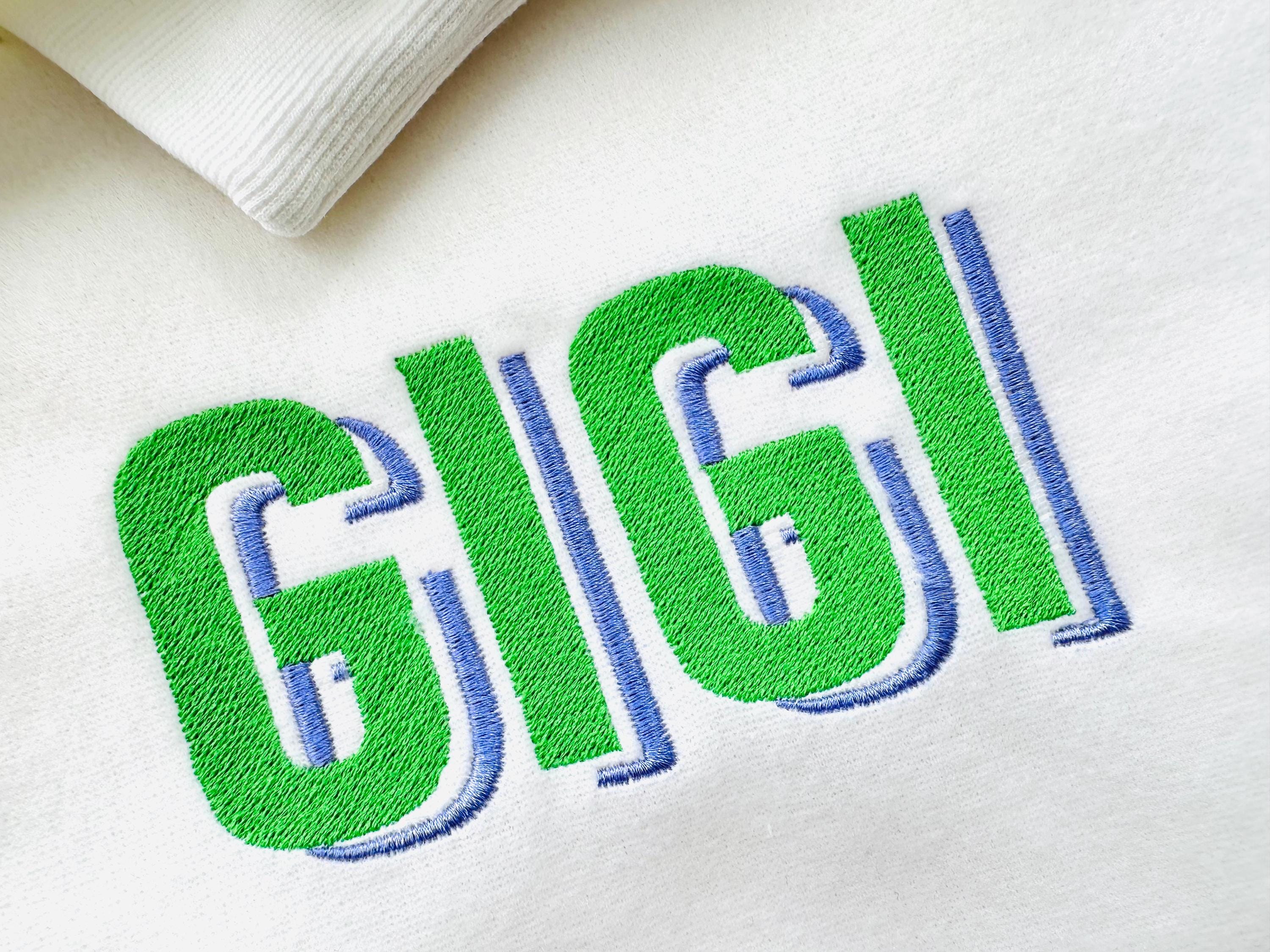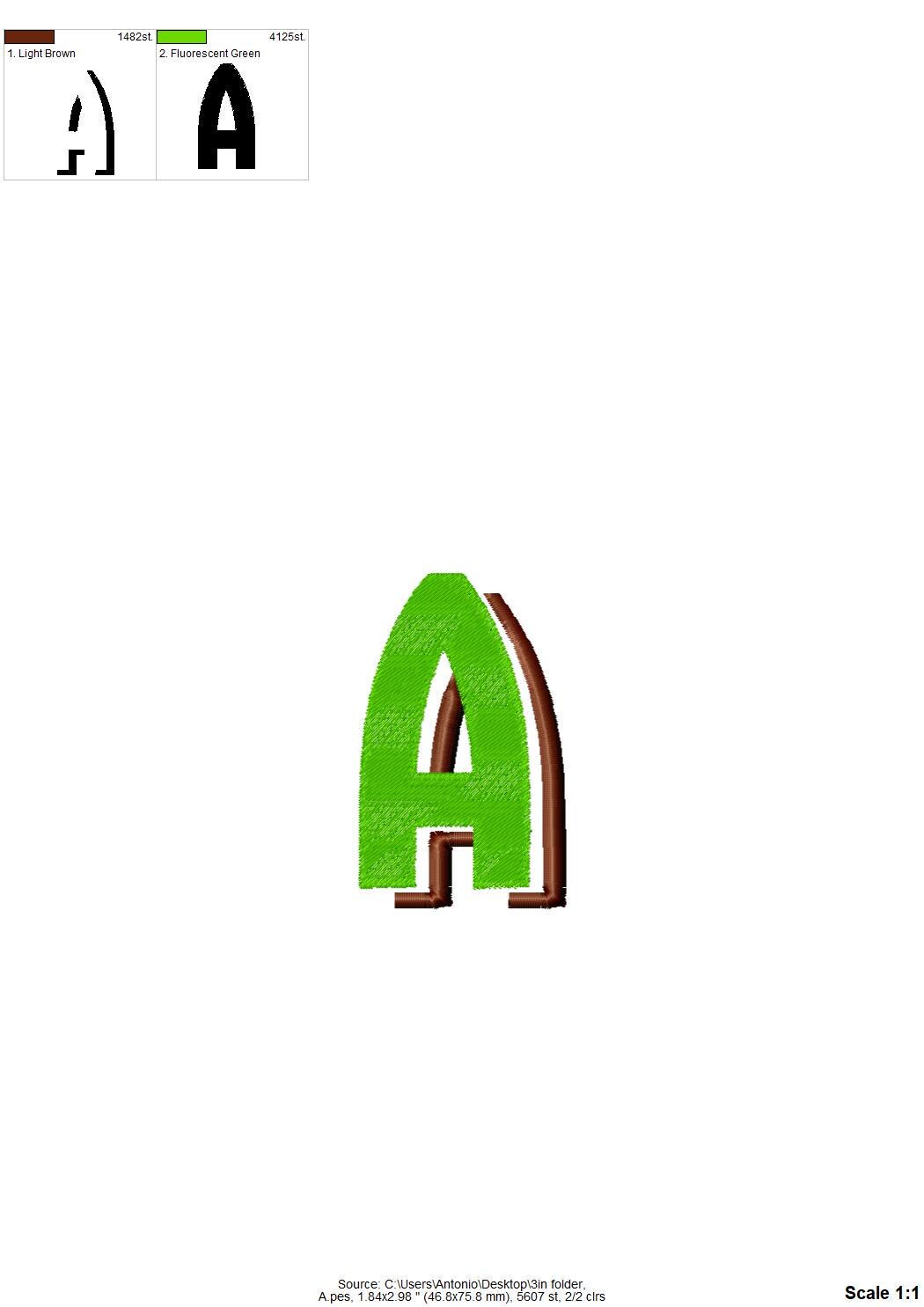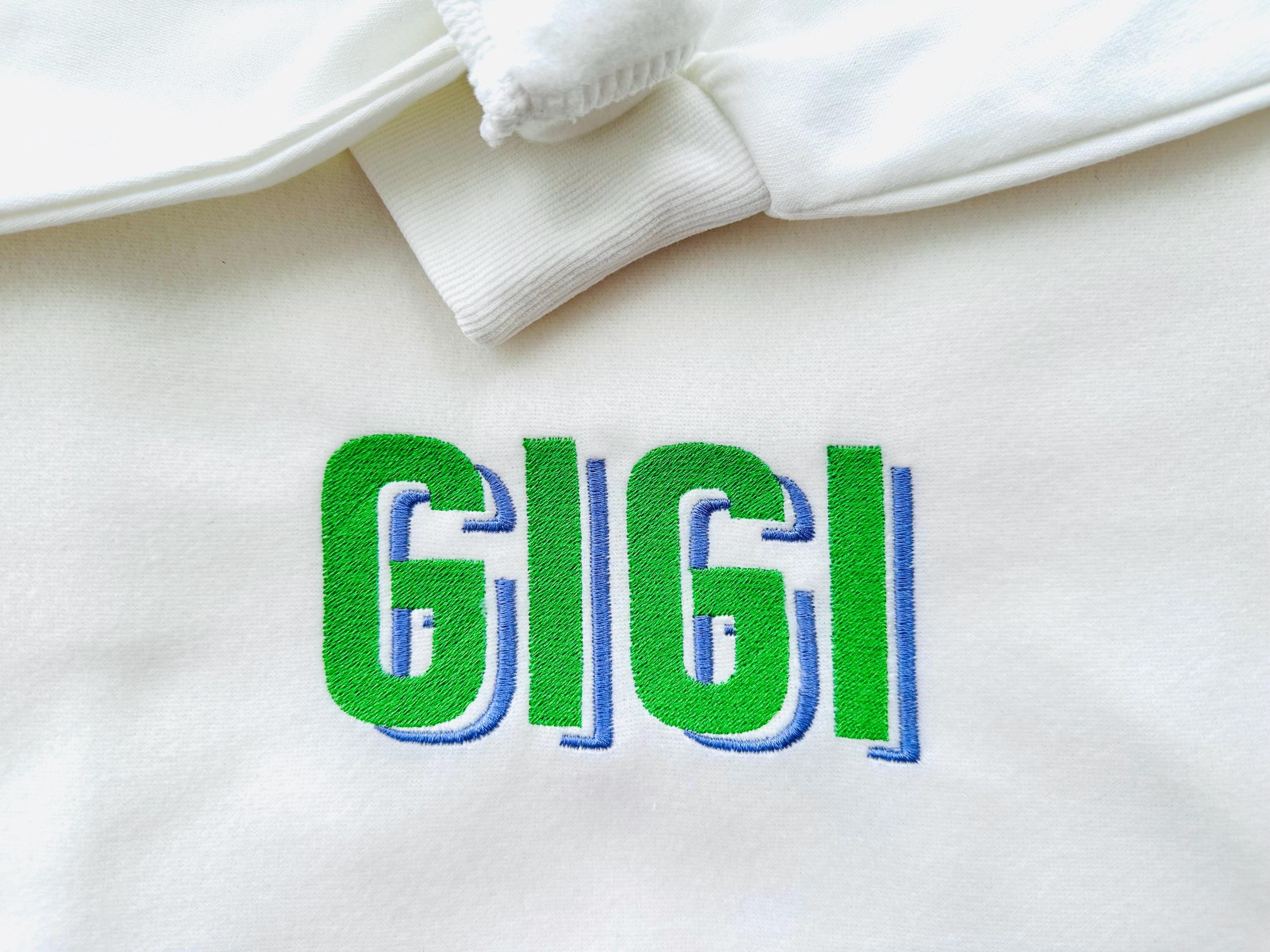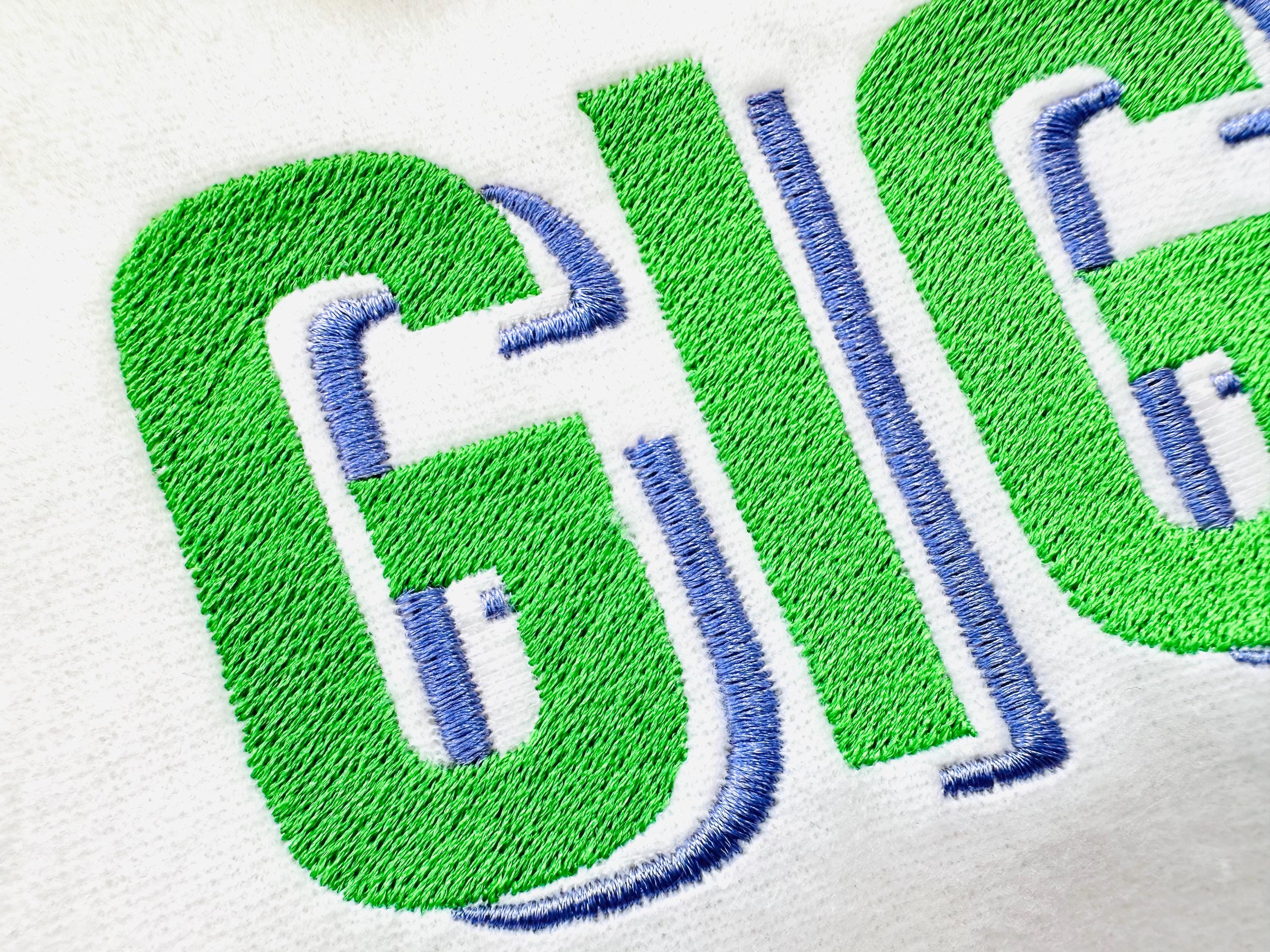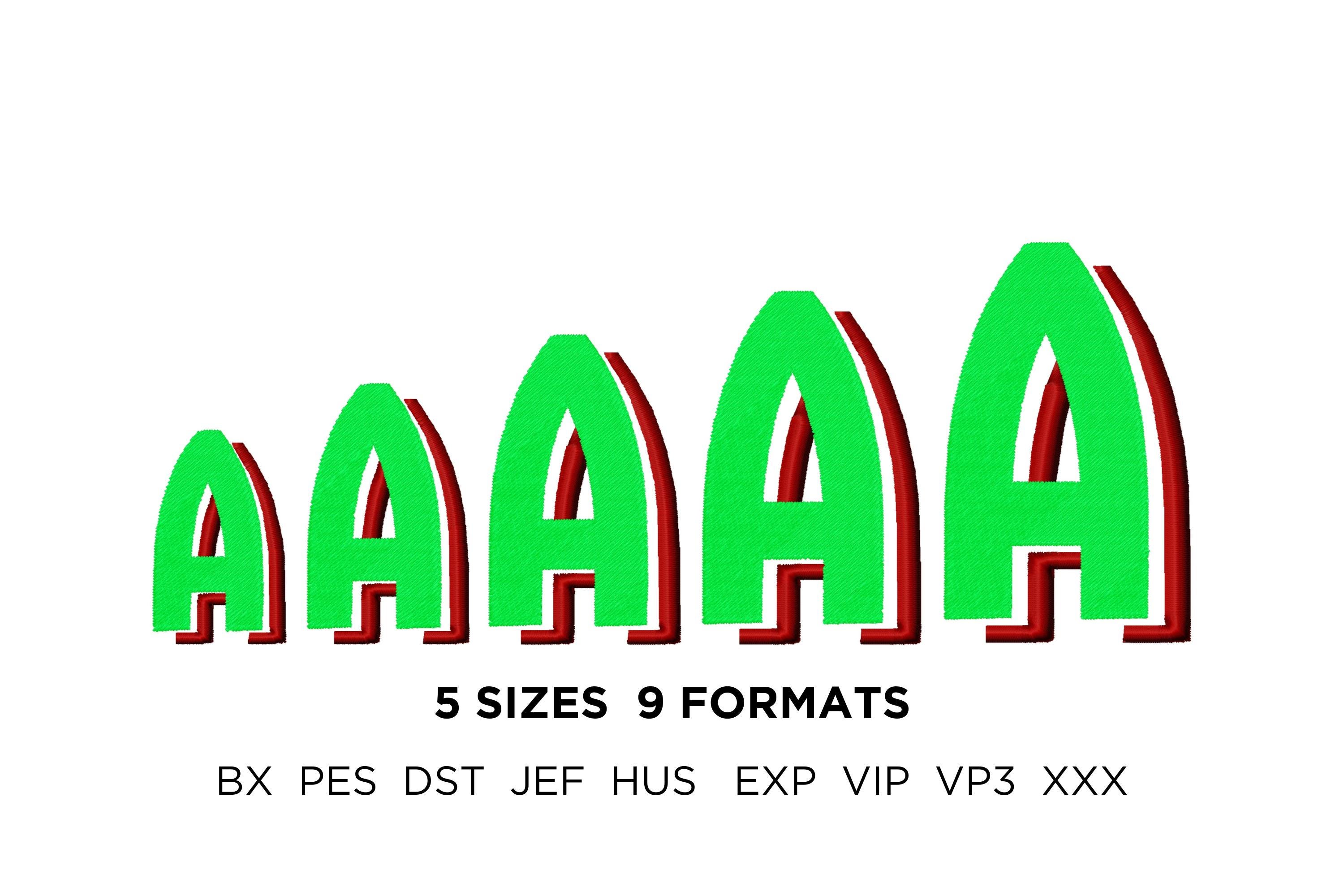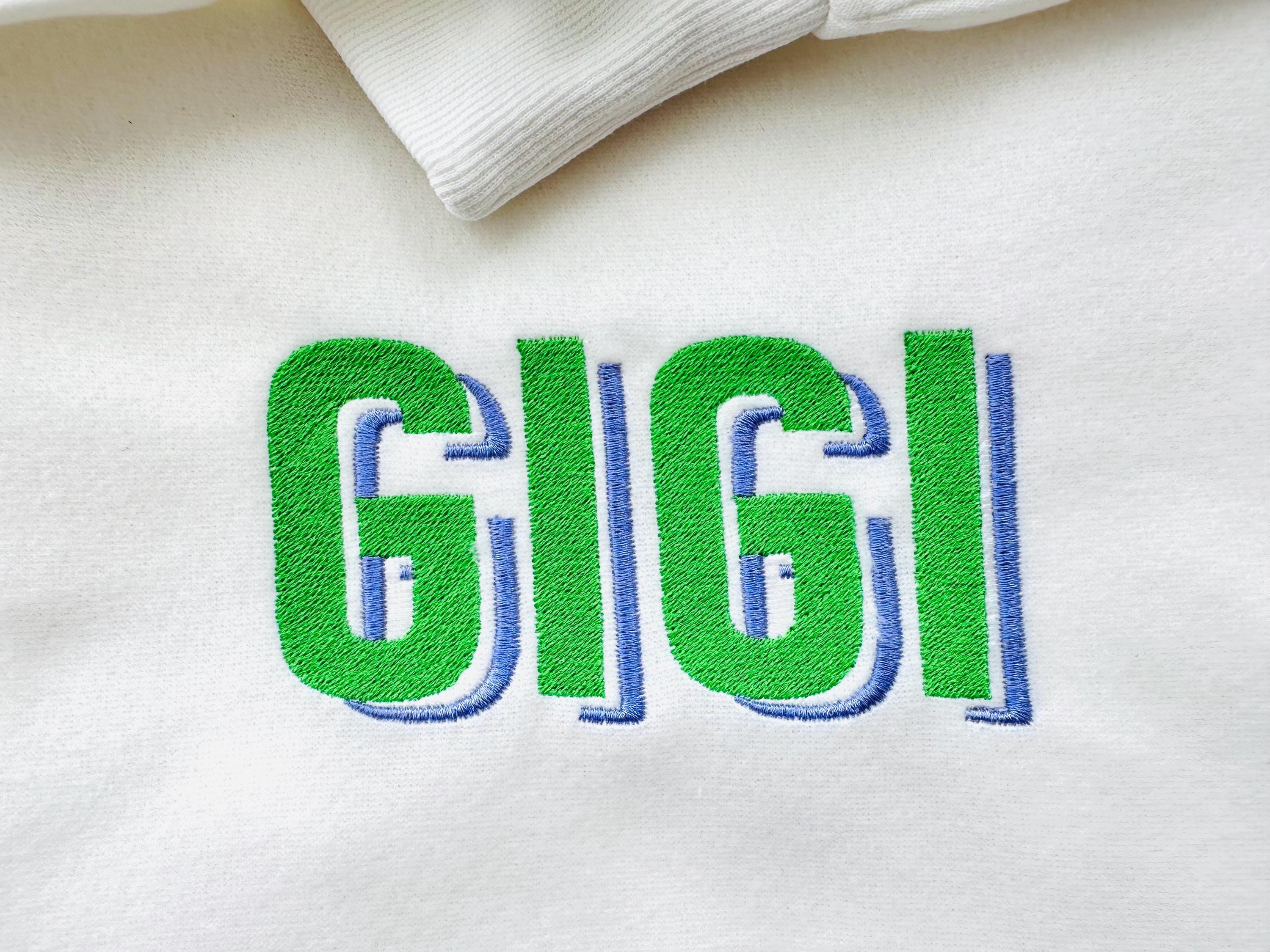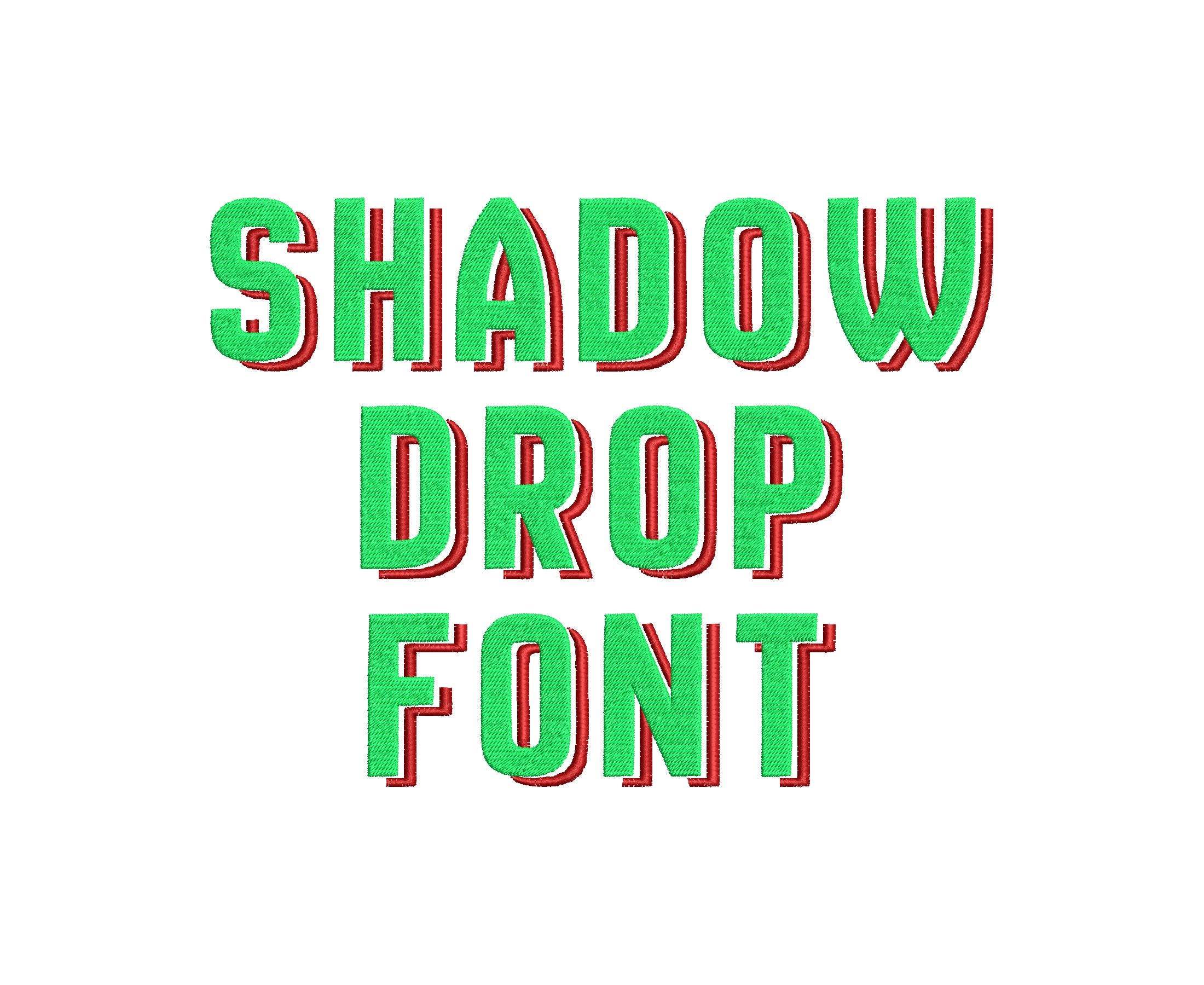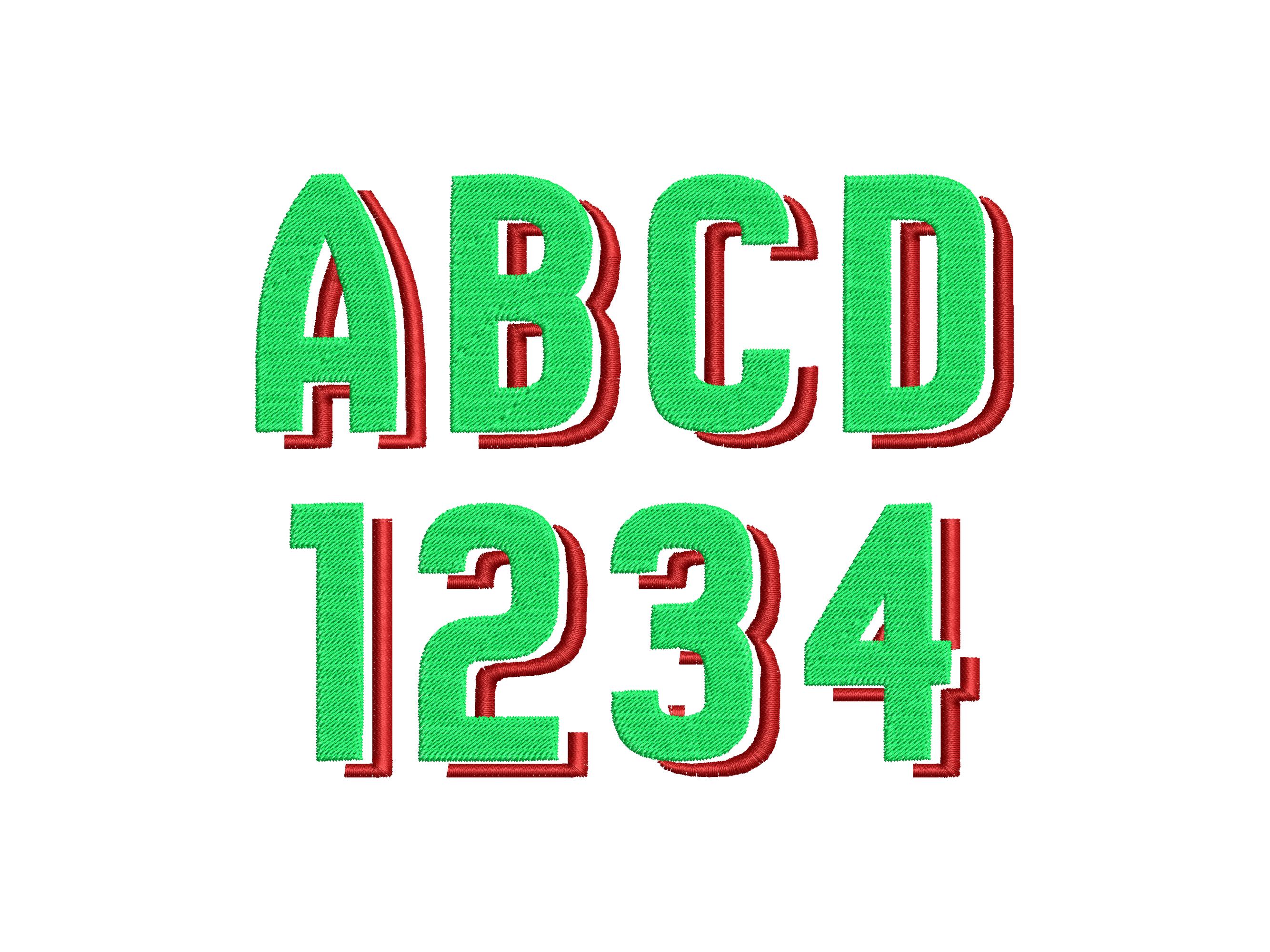
Shadow Drop FONT machine embroidery designs best shadowed monogram block bold embroidery font letters assorted sizes 1.8 up to 3.4 inch
Whole alphabet A-Z uppercase letters, numbers 0-9, and ampersand.